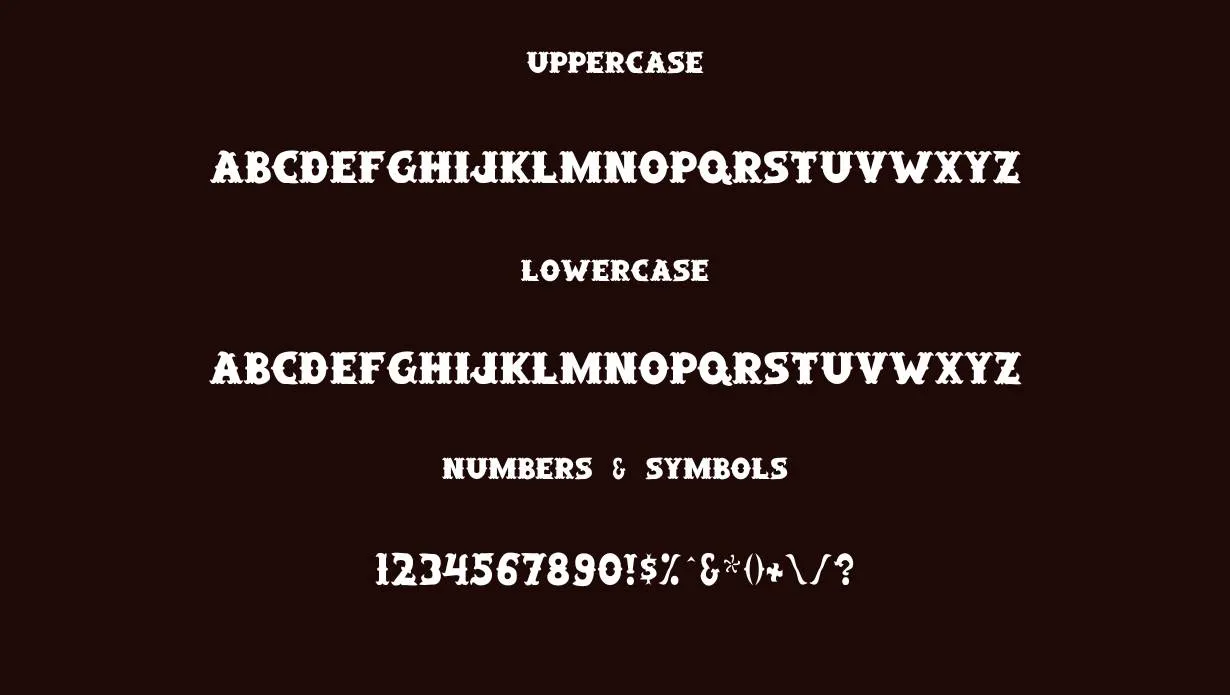
Saloon Font has a vintage and rustic style. Its bold, Western-inspired letters bring a sense of the old Wild West. This font typically comes in TTF and OTF file formats, making it widely usable across various platforms. It’s often used in designs related to country themes or rustic settings, evoking a feeling of history and ruggedness.
Its old-time appearance adds a touch of nostalgia, making the text look classic and distinctive. To ensure your design is unique and captivating, make sure to combine this font with the whole trains font.